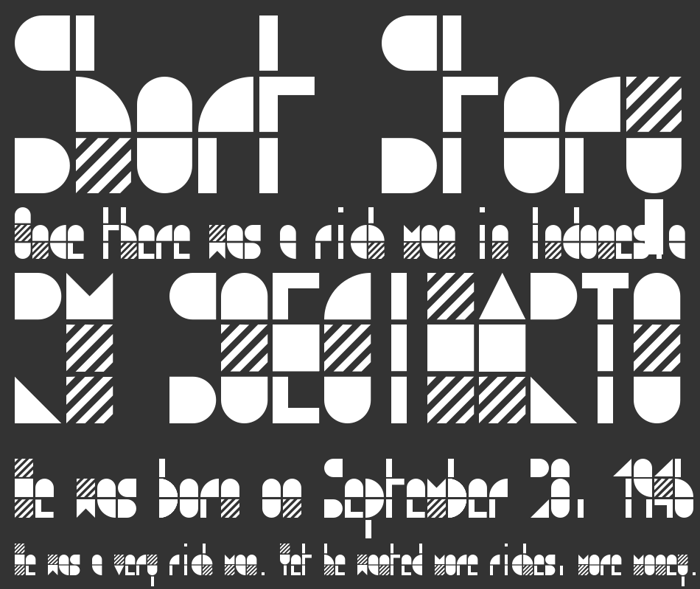
modulo3 Font
Modulo 3 is a squared, sans serif font created on a module composed by three parts. It was born to experiment the possibility to use a font as a pattern for graphics.